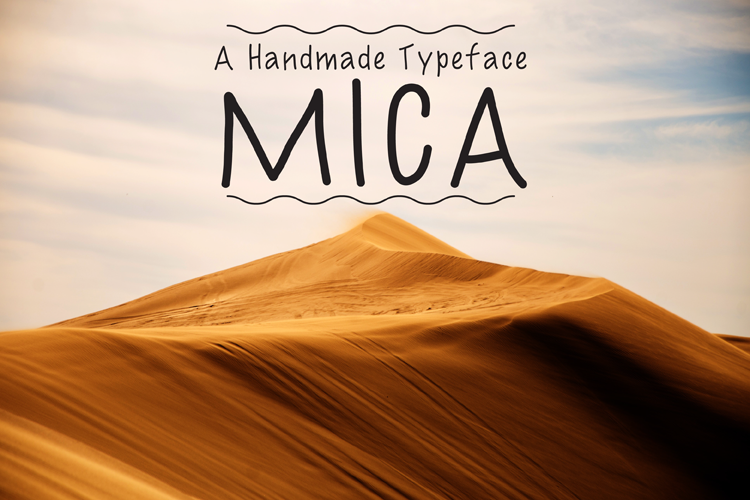
Mica
This typeface is ideal branding projects such as logos, and stationary. Use it alone or combined with other fonts. It will be
sure to brighten up any project.